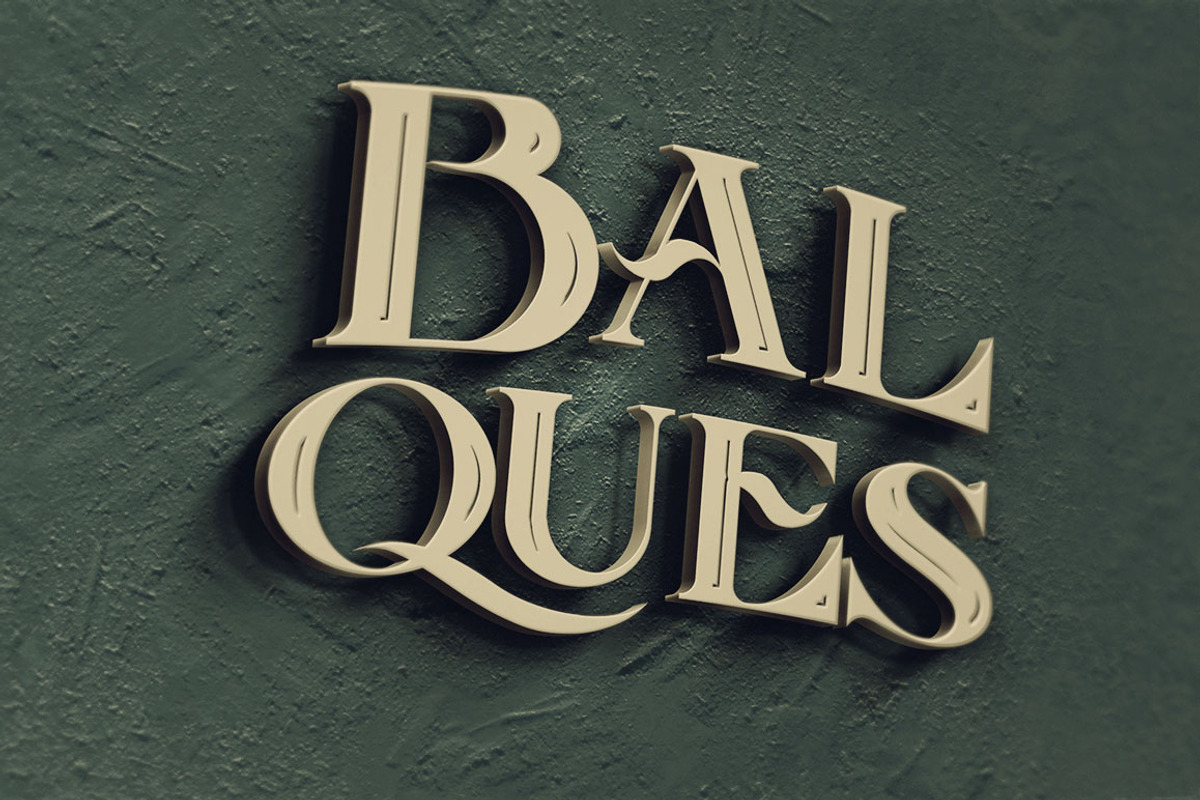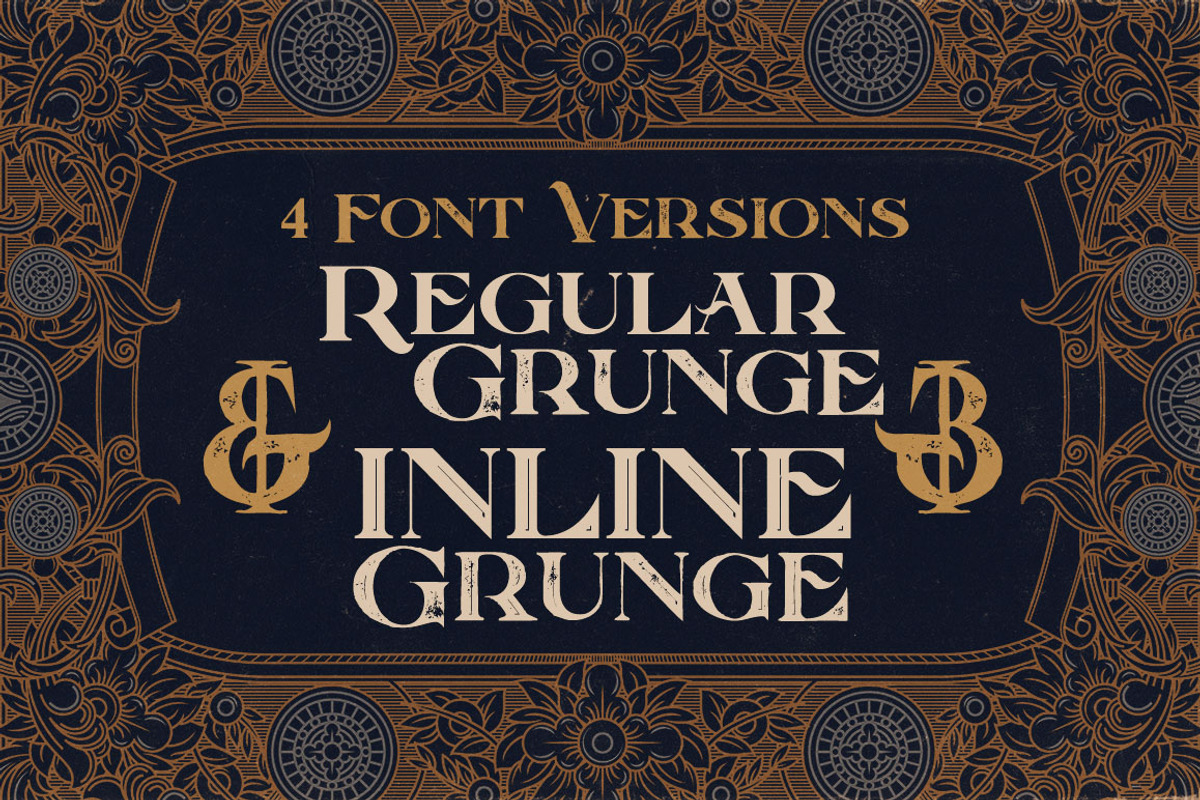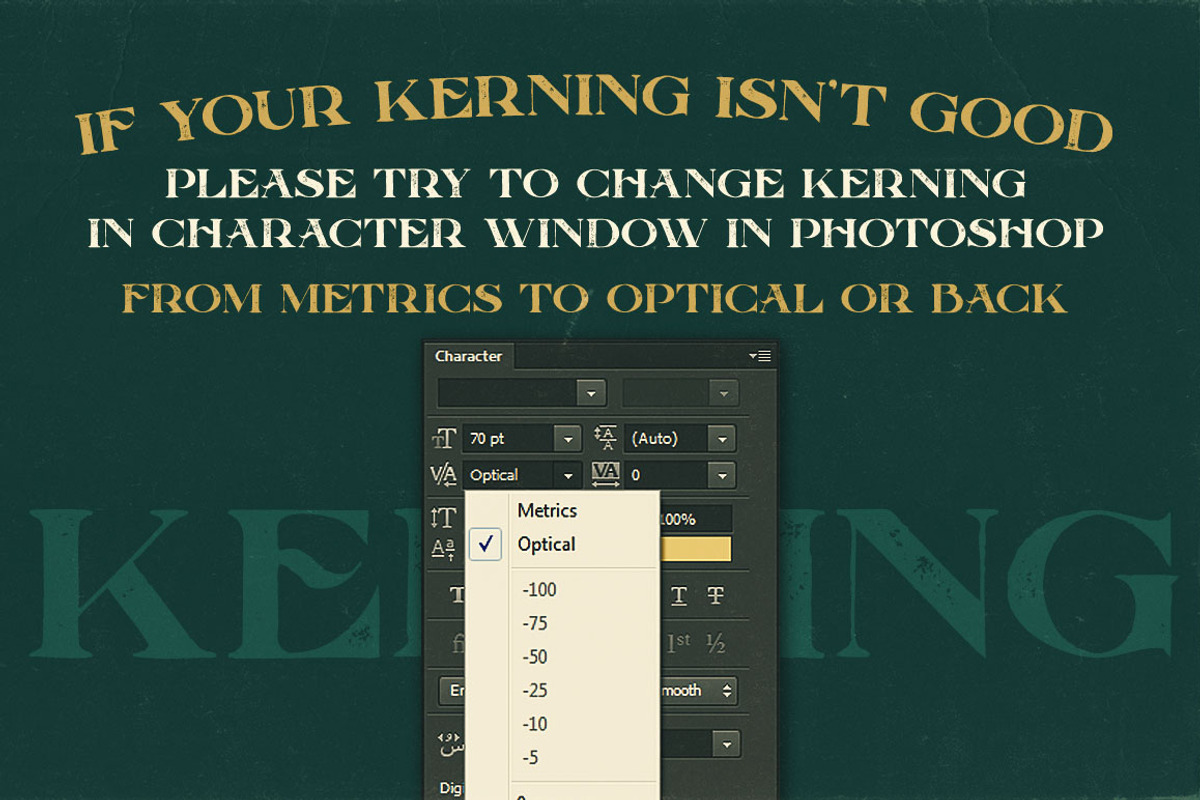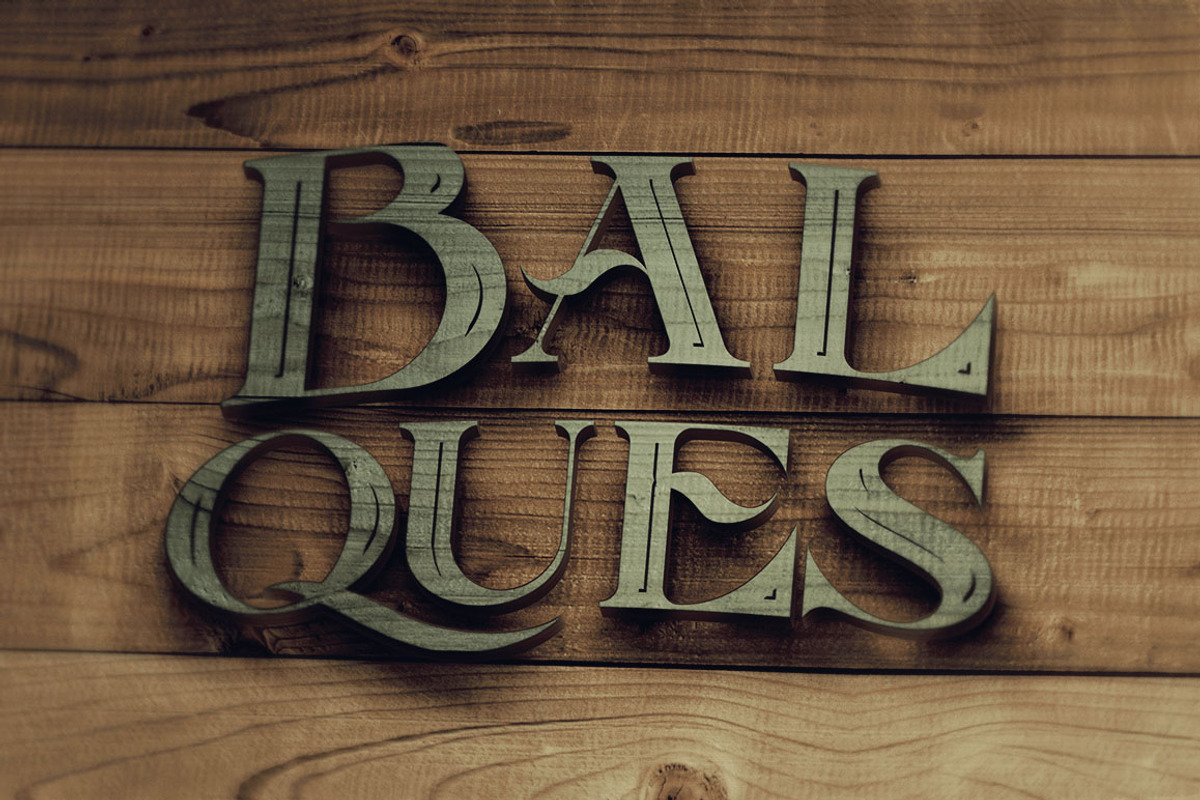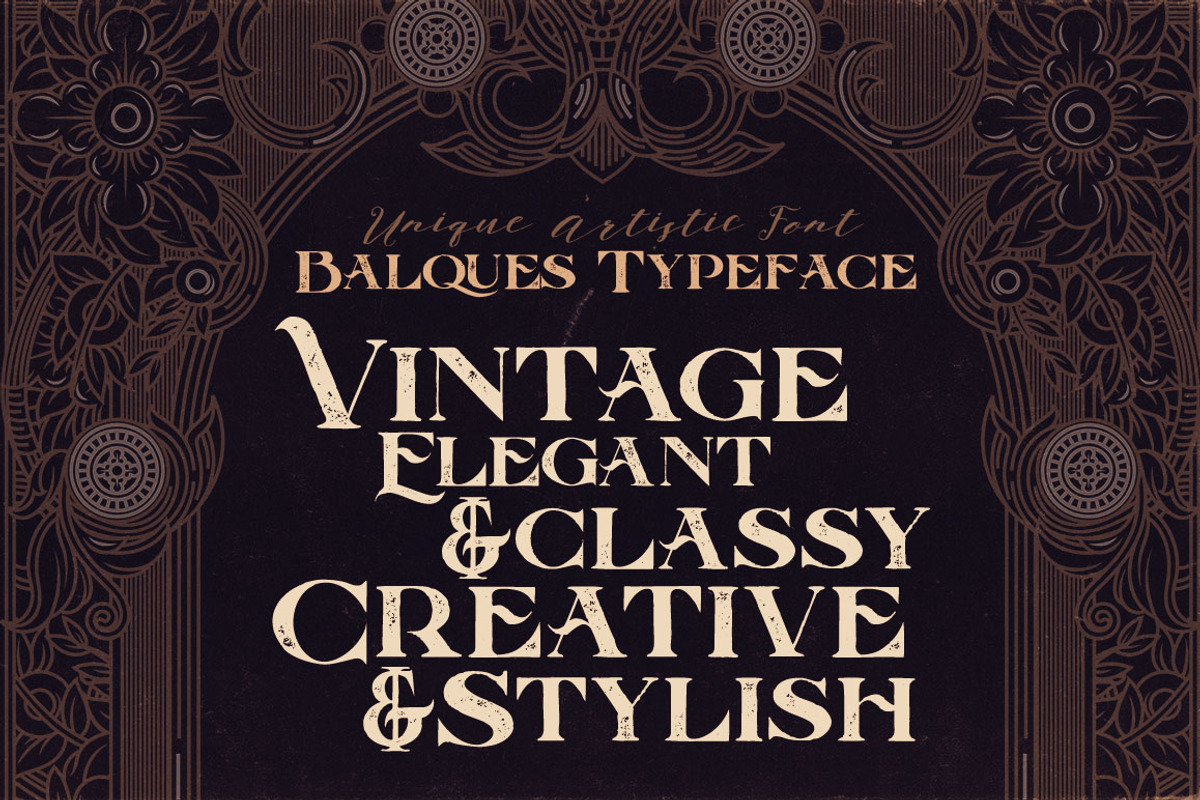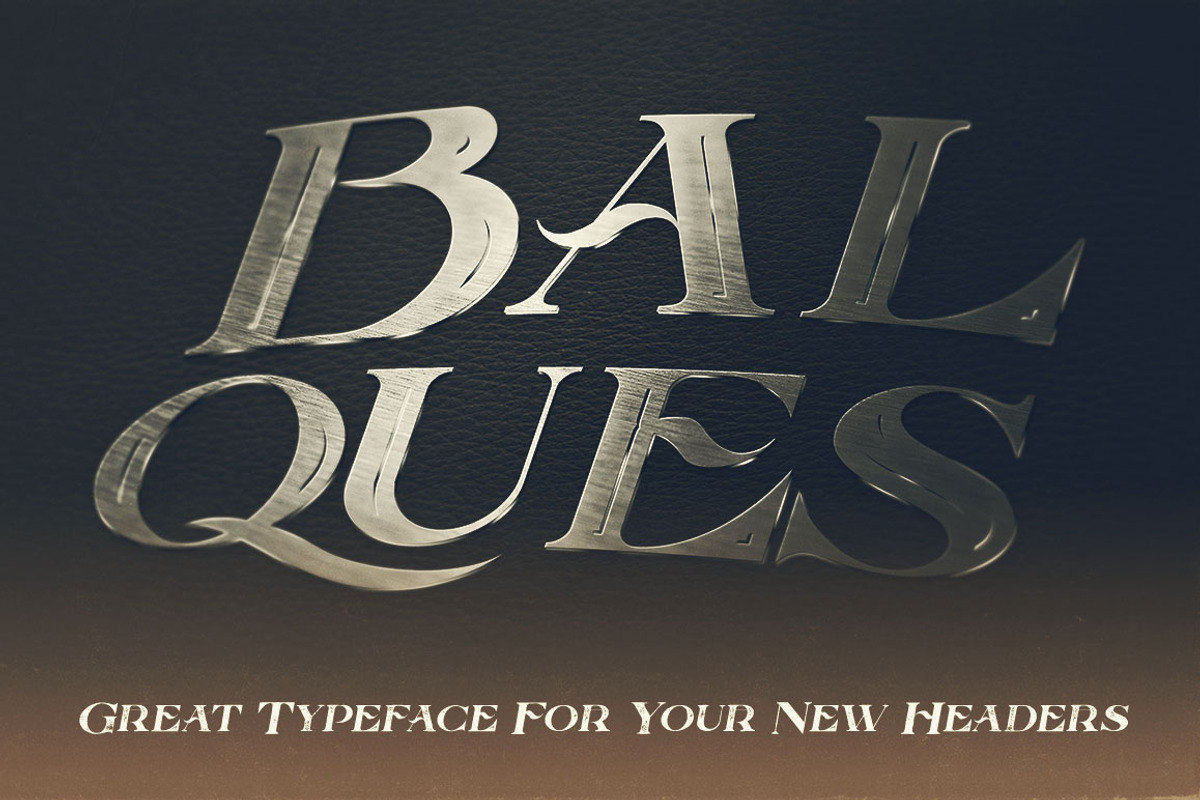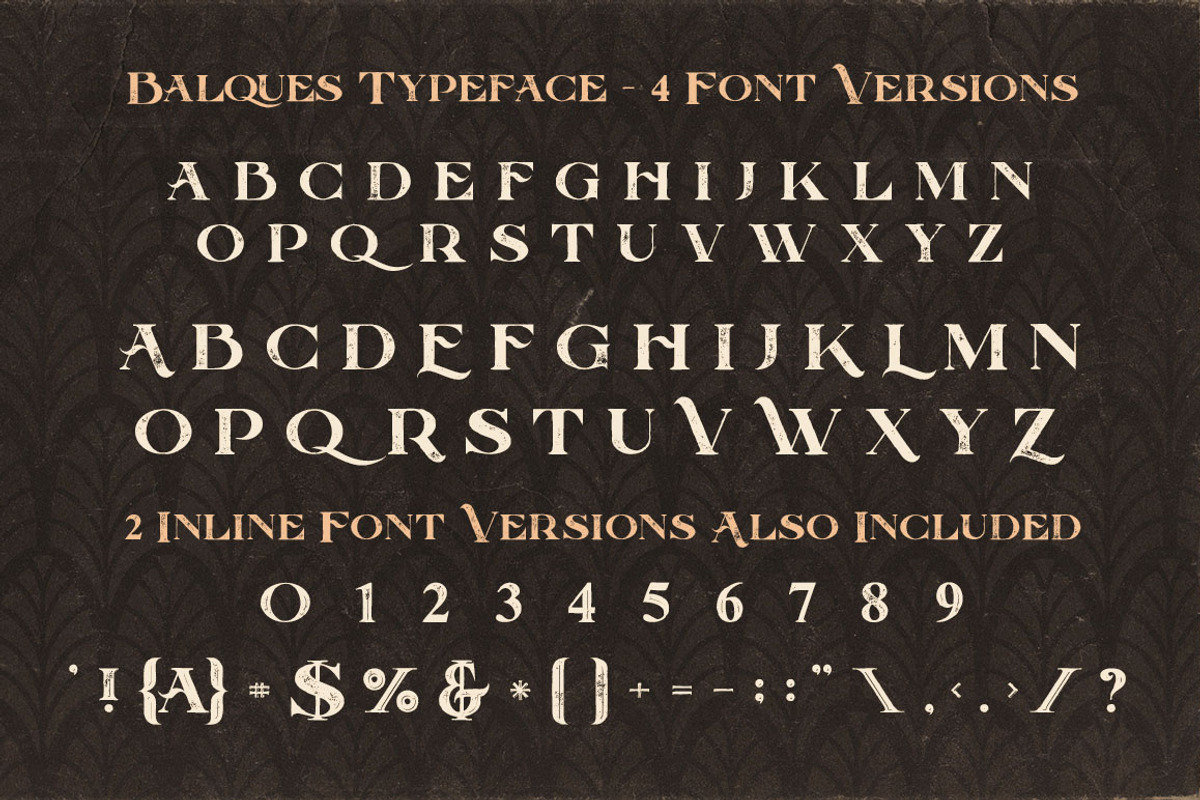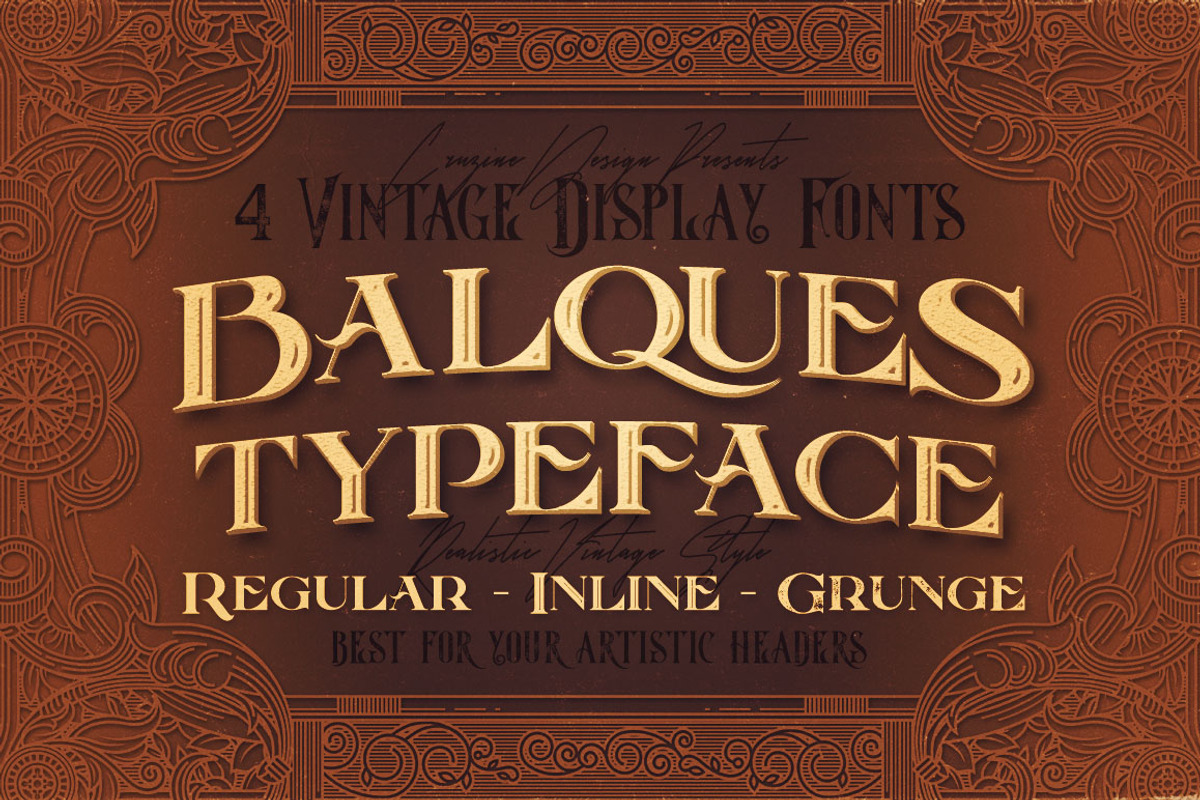
Balques Typeface
Retro, vintage or grunge style display font for your new projects. Great for grunge/retro/vintage projects!
Balques Typeface by Cruzine fits naturally into Branding, posters, packaging, typography.